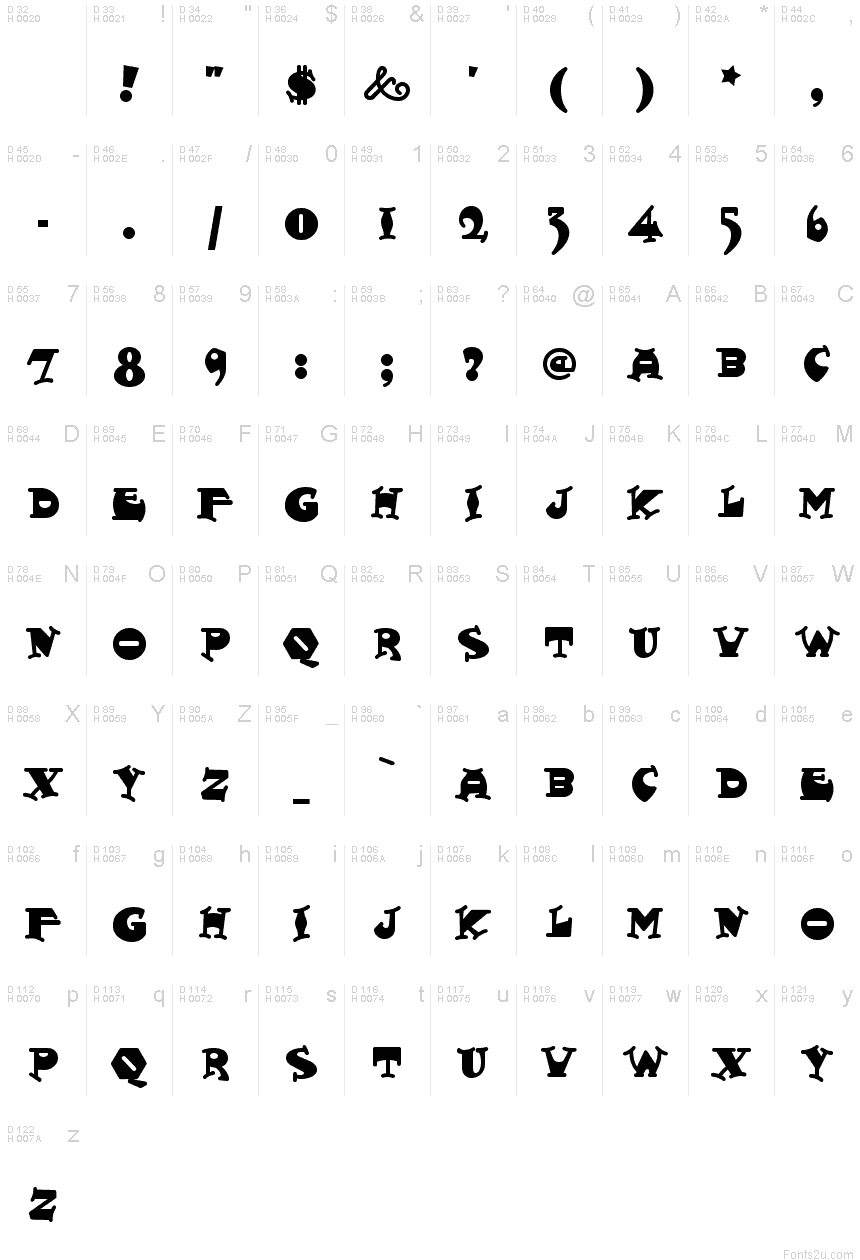
FattySnaxNF
Fatty Snax NF font by Nick Curtis is a free comic display typeface with chunky, sign-painter energy and a bold, snack-bar attitude. Its heavy, blocky letters sit on stubby slab bases, giving every word a bouncy, hand-painted feel that looks like it was pulled from a vintage fairground banner or old-school candy wrapper. The inky, almost squashed shapes make headlines feel loud, warm, and a little mischievous.
Using Fatty Snax NF, you can bring character to food packaging, retro posters, kids’ event flyers, ice cream menus, YouTube thumbnails, and playful logo lockups. This free font shines at large sizes where its thick strokes and quirky rhythm can really breathe; pair it with a clean geometric sans for small supporting text to keep layouts readable while the main lettering does the shouting.